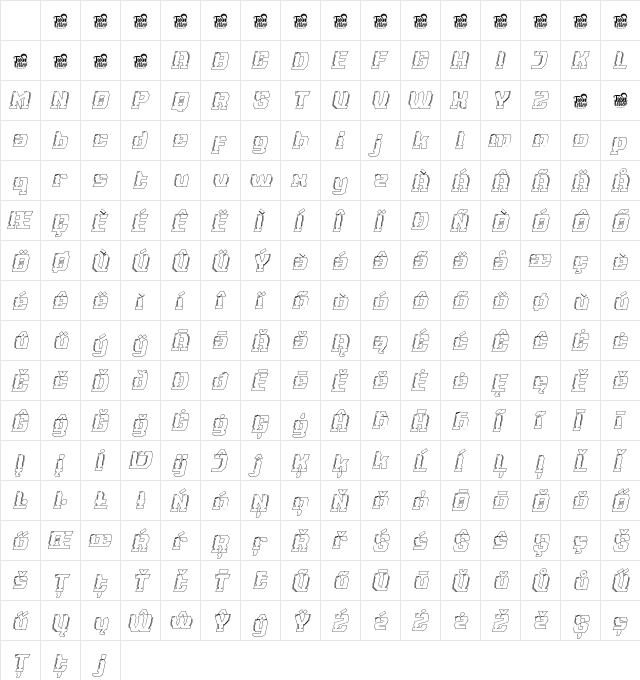
Complete NAXMOS-OutlineItalic Regular glyph index. Displaying only characters natively supported by NAXMOS-OutlineItalic Regular font.
NAXMOS-OutlineItalic is built around its visual character rather than neutral utility - its distinctive forms are designed to make an impression at display sizes. The slanted form adds forward momentum and visual energy.
Font Pairing: Pair with a clean neutral sans-serif for body copy to let NAXMOS-OutlineItalic's character lead without overwhelming the composition.
Pro Tip: Use NAXMOS-OutlineItalic exclusively at display sizes - it was designed to be seen, not read at length. Let a neutral companion handle body copy.